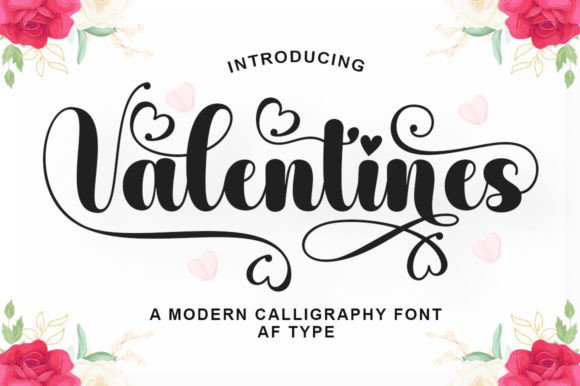
Looking for the perfect font to make your projects stand out? Look no further than Valentines Font, the best font for logo design in 2015! Created by AF Type, this script font is sure to impress with its sweet and cursive handwritten style.
Valentine's Font is perfect for adding a romantic touch to any project. Whether you're designing wedding invitations, creating a logo for a new business, or simply looking to add a touch of elegance to your website or social media posts, this font is sure to make a statement.
With its gentle curves and flowing lines, Valentines Font is versatile enough to be used in a variety of design ideas. From vintage to modern, this font is a perfect fit for any style.
But Valentines Font isn't just beautiful - it's also incredibly easy to use. With its intuitive design and simple, user-friendly interface, you'll be able to create stunning designs in no time.